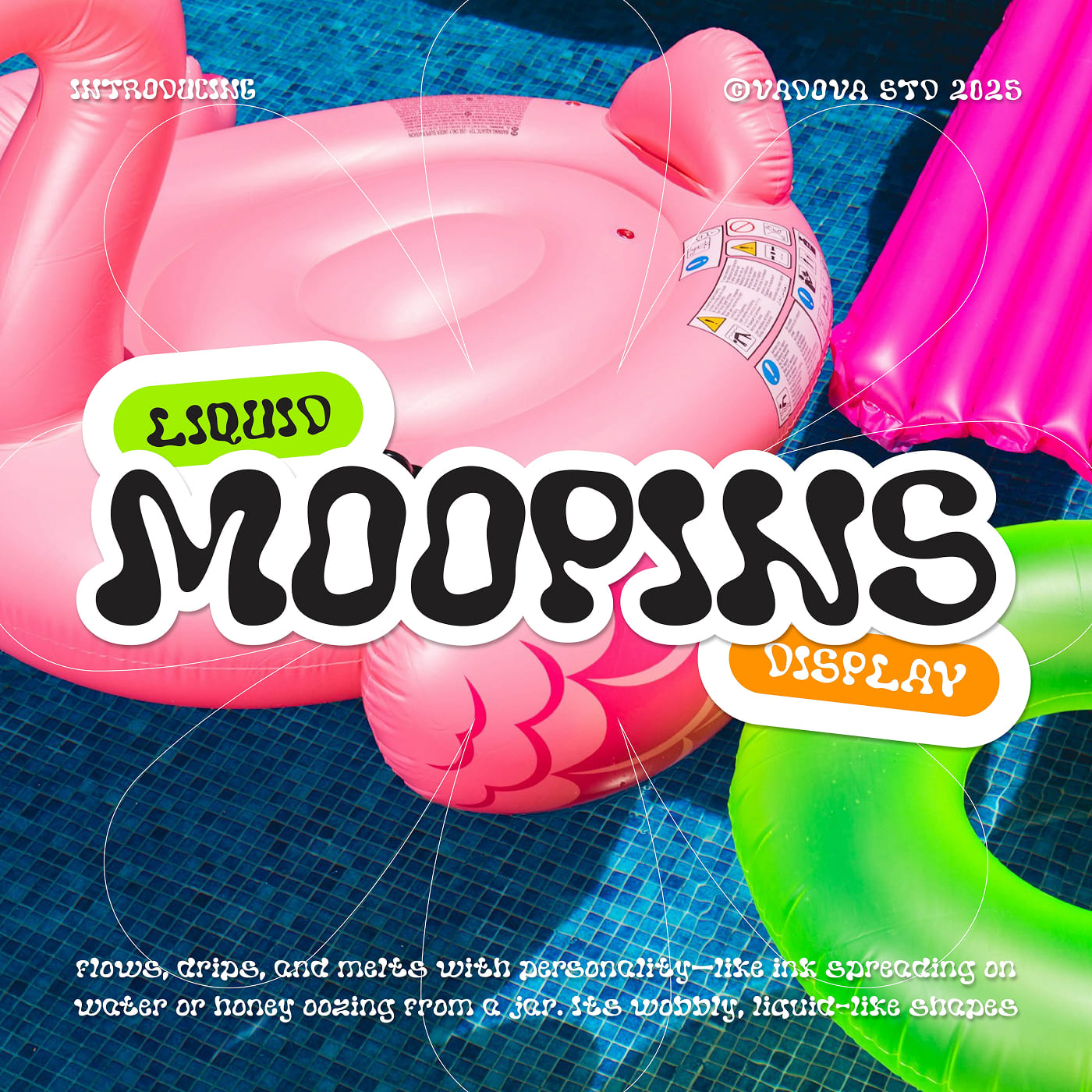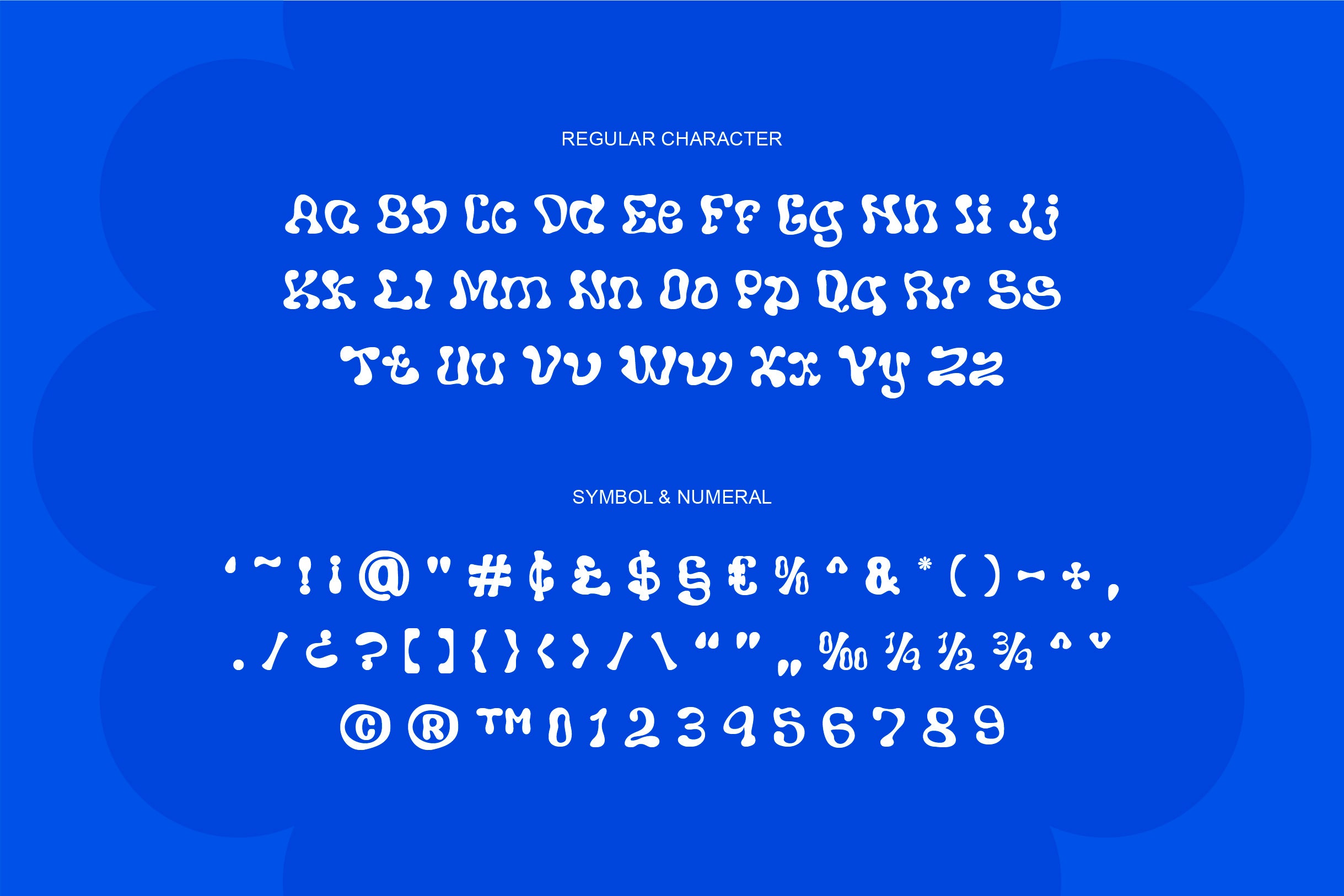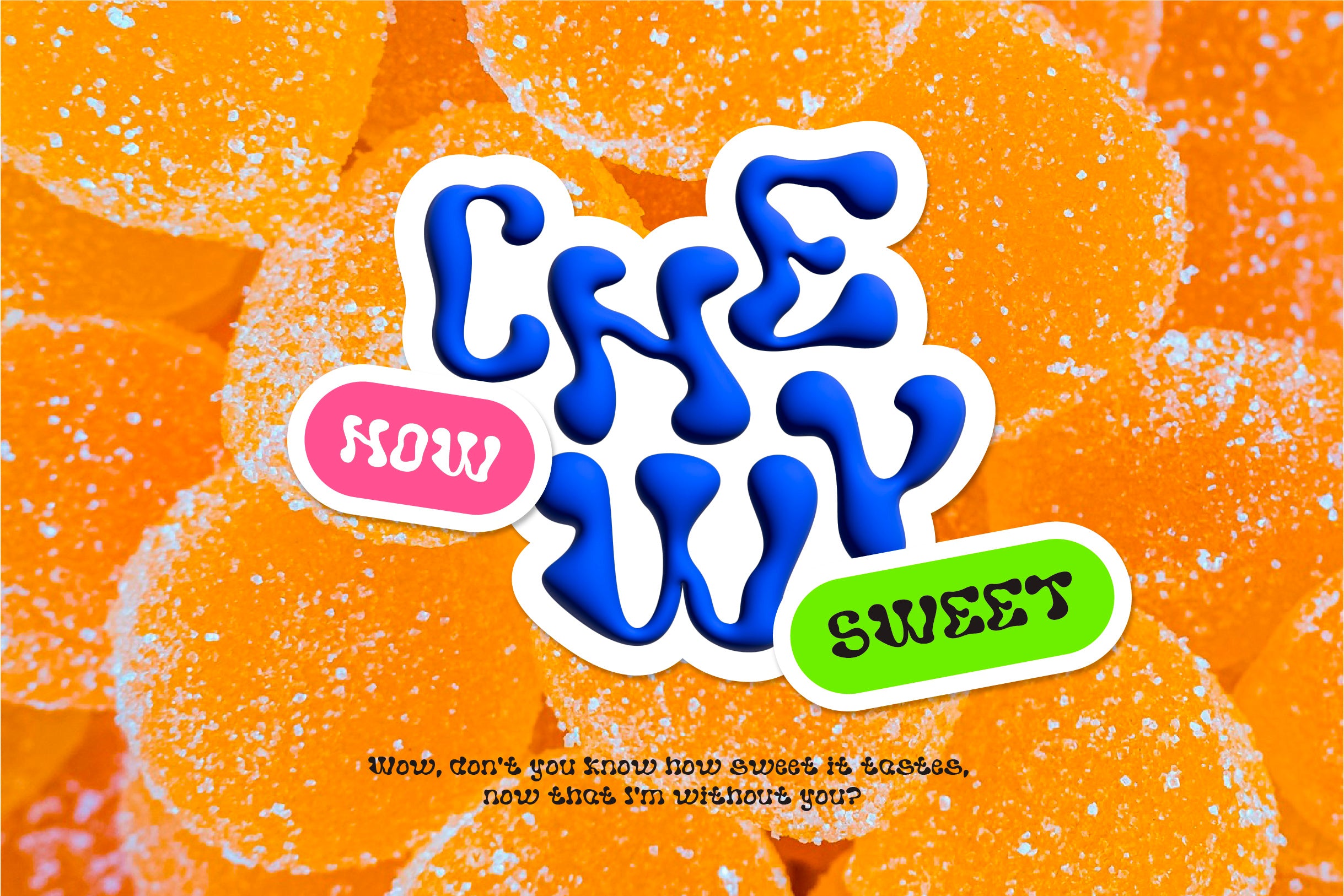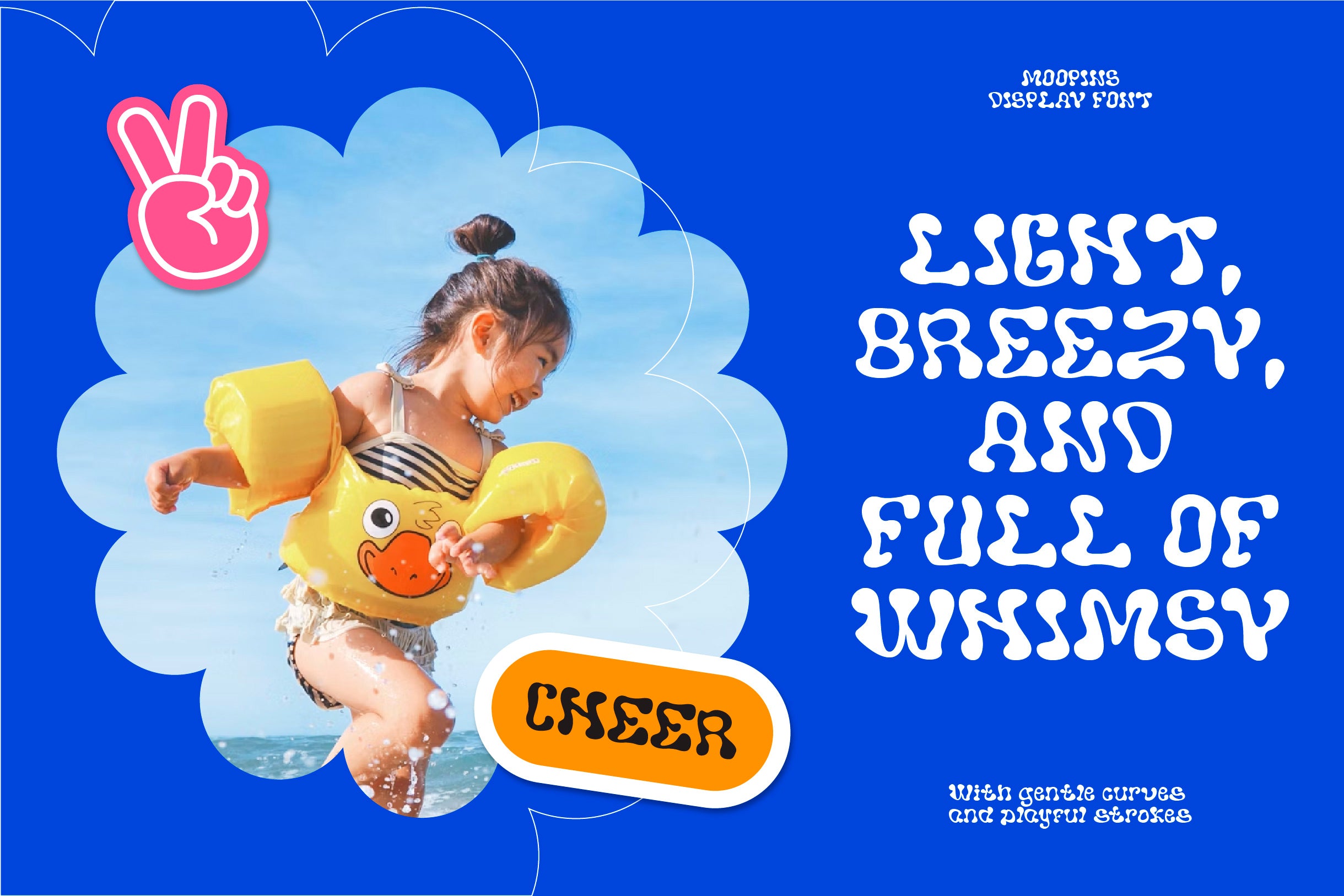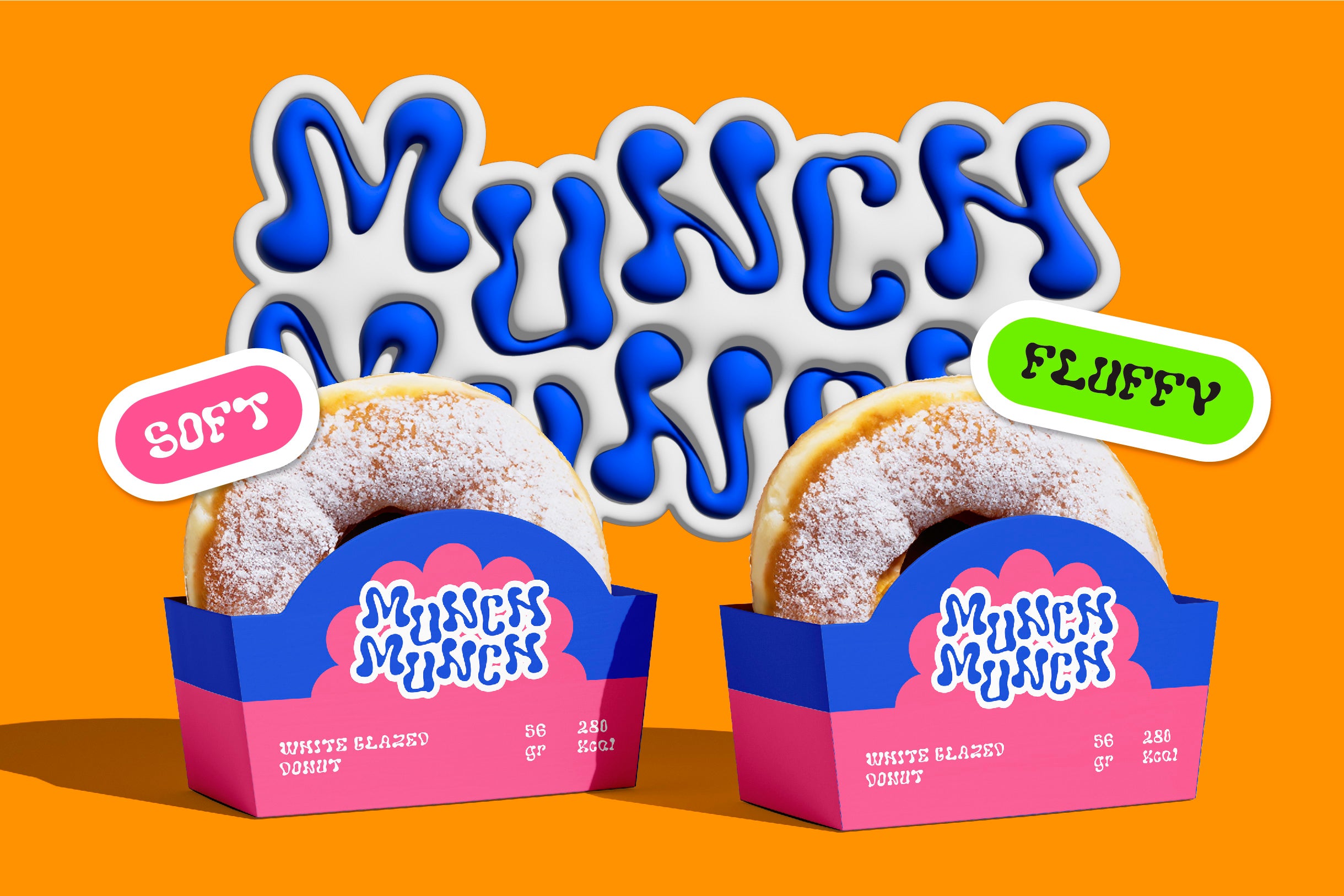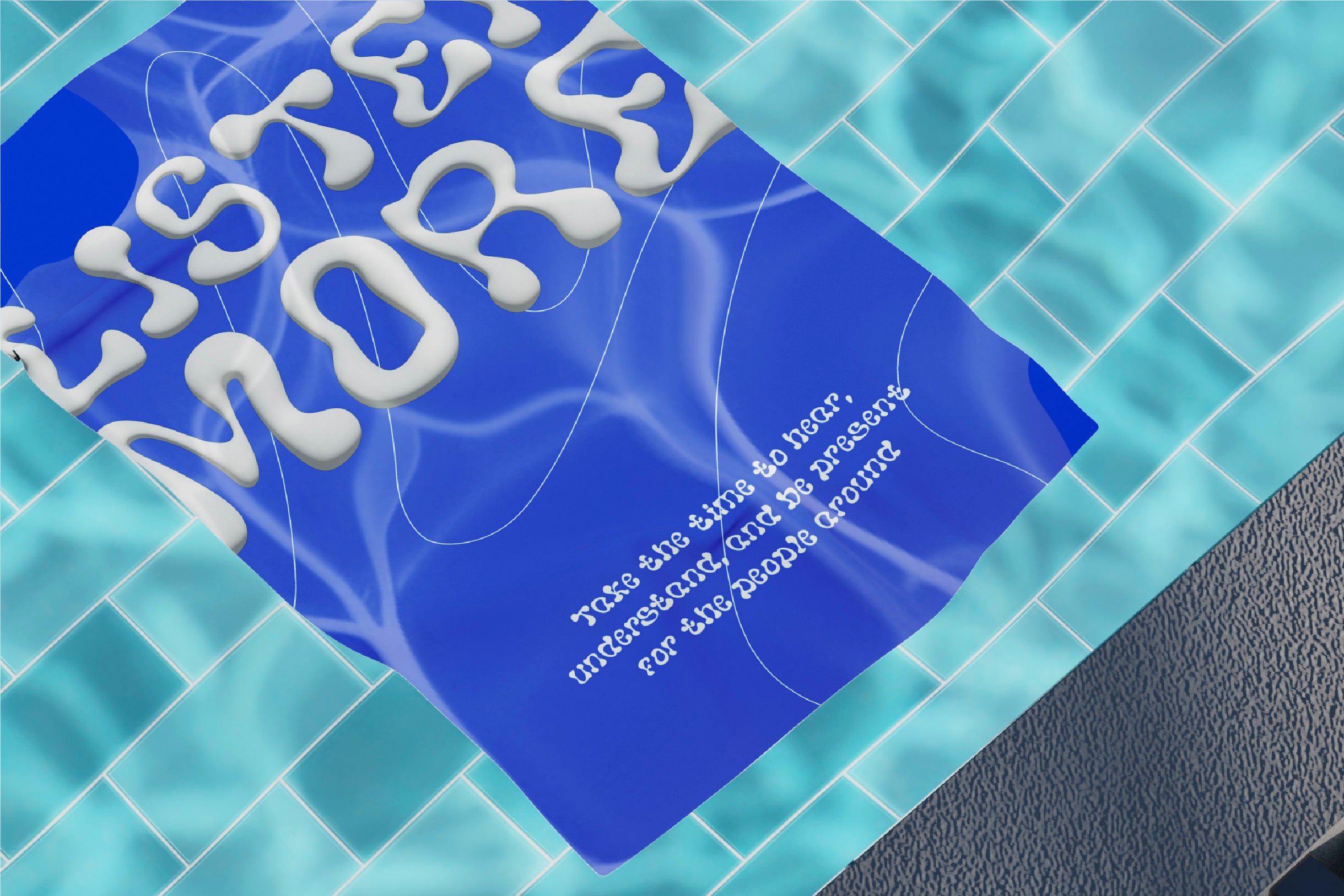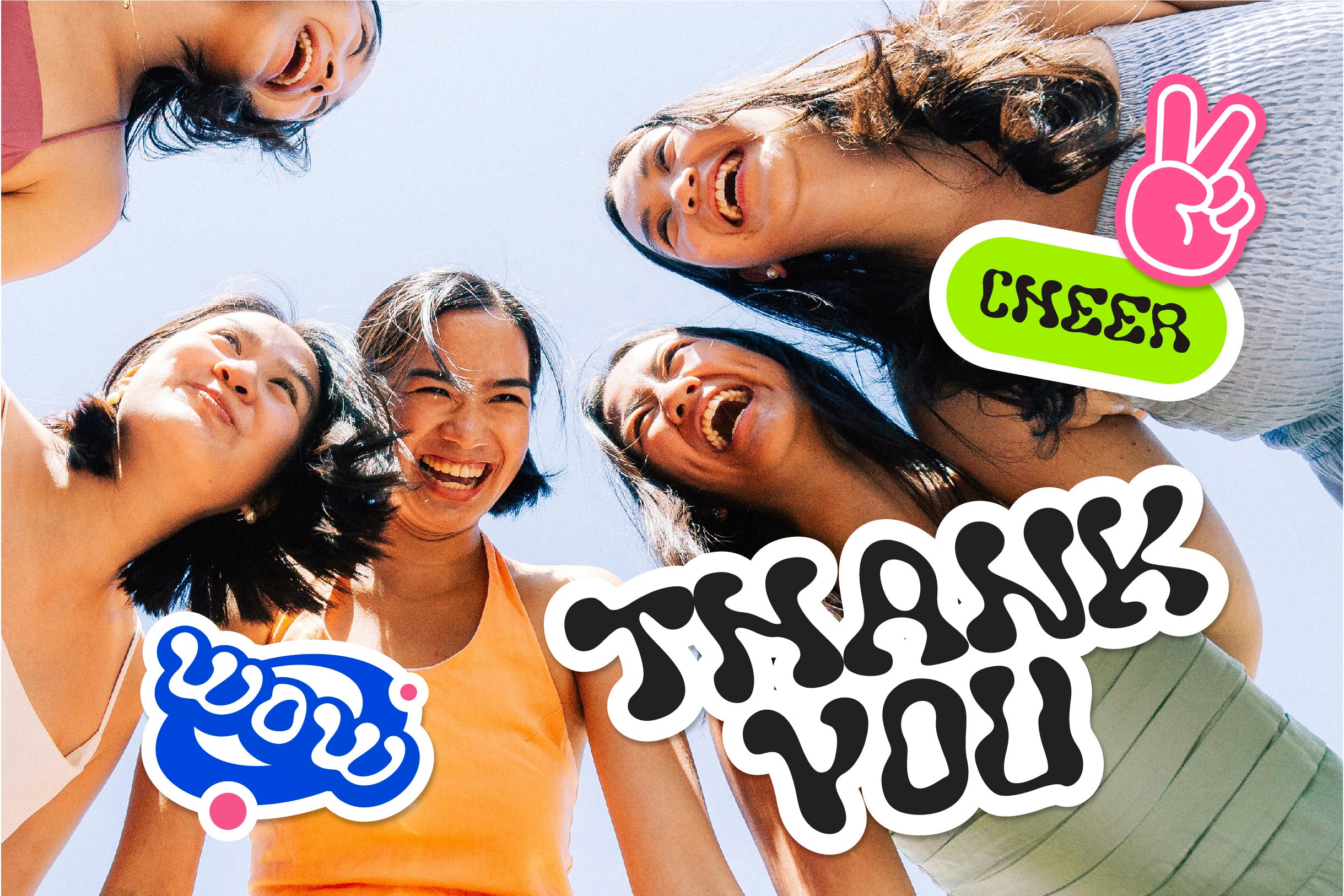
Moopins Liquid Display Font
Moopins is a playful liquid-style display font with soft, wobbly shapes and bold rounded forms. Inspired by melting ink, dripping shapes, and organic motion, this font delivers a lively and expressive personality. Each character feels fluid and dynamic, creating a fun visual rhythm that stands out instantly. MOOPINS is designed to bring joy, energy, and a carefree attitude to creative design projects.
Moopins is a liquid-style display font featuring soft, wobbly shapes and bold rounded forms with uppercase and lowercase characters, numerals, and punctuation. It is available in TTF, OTF, and WOFF formats.